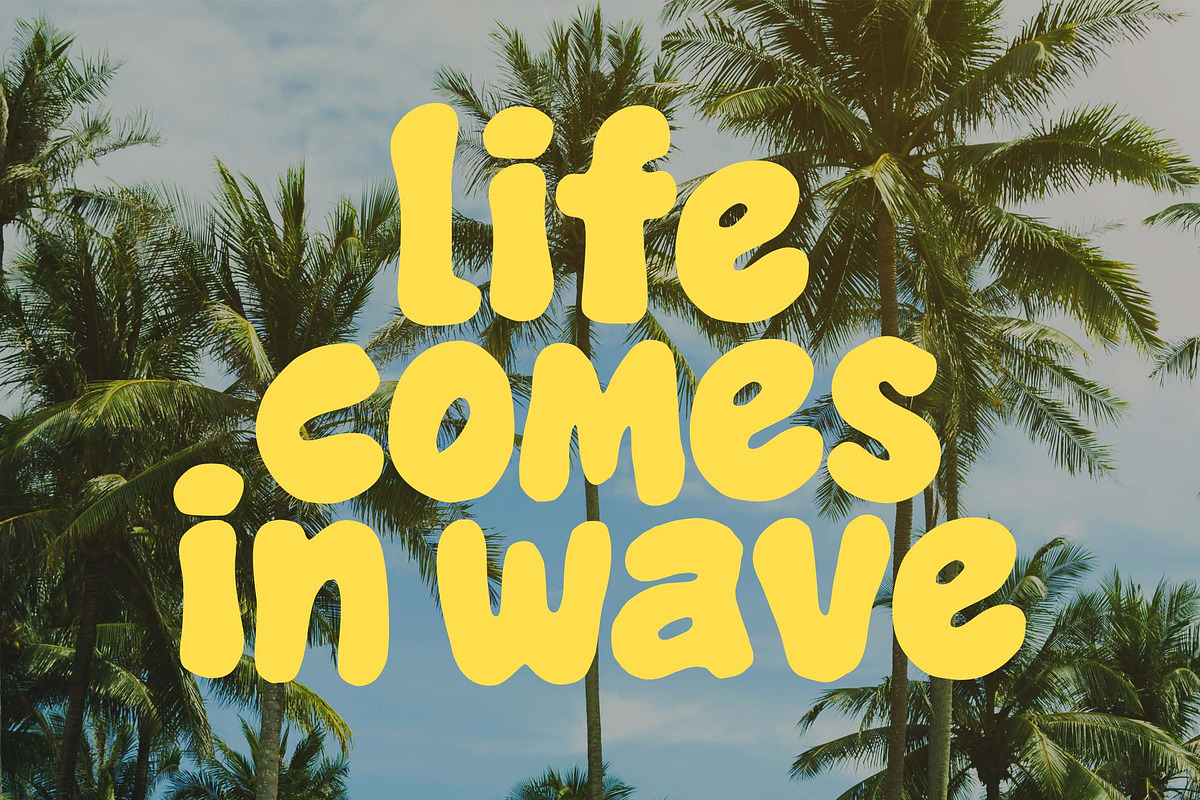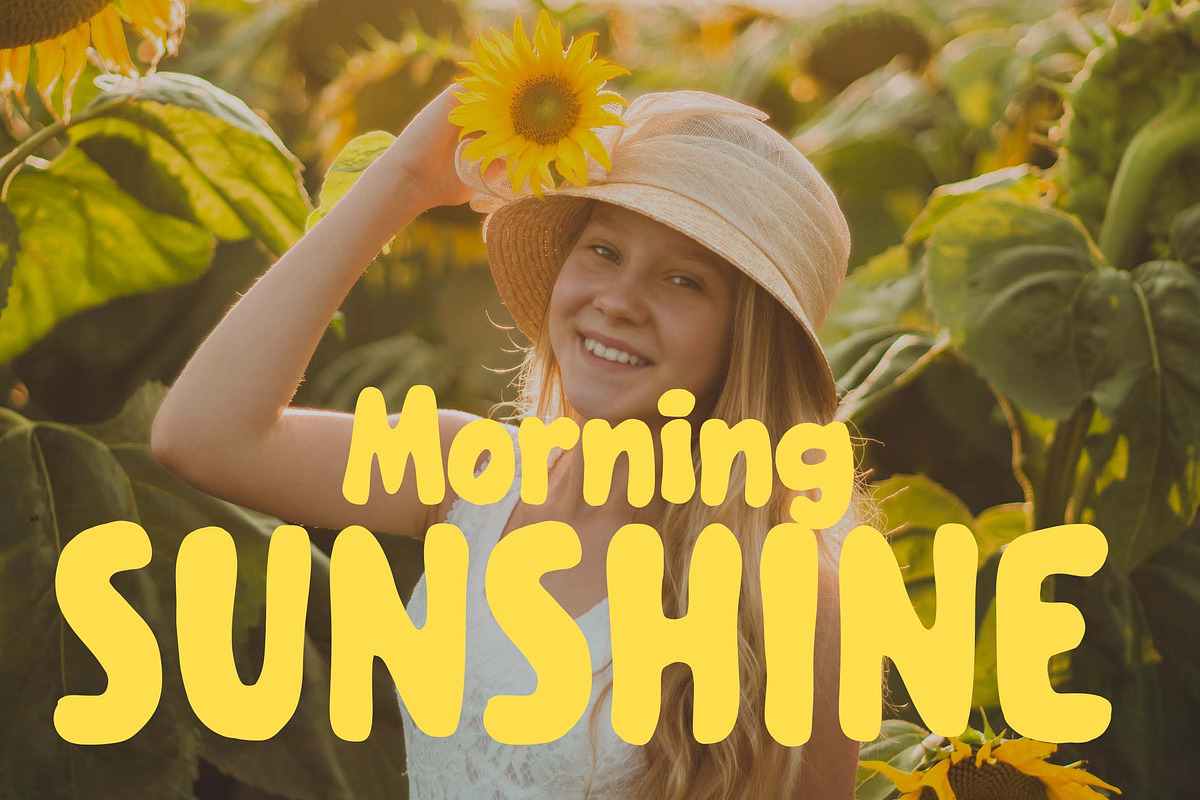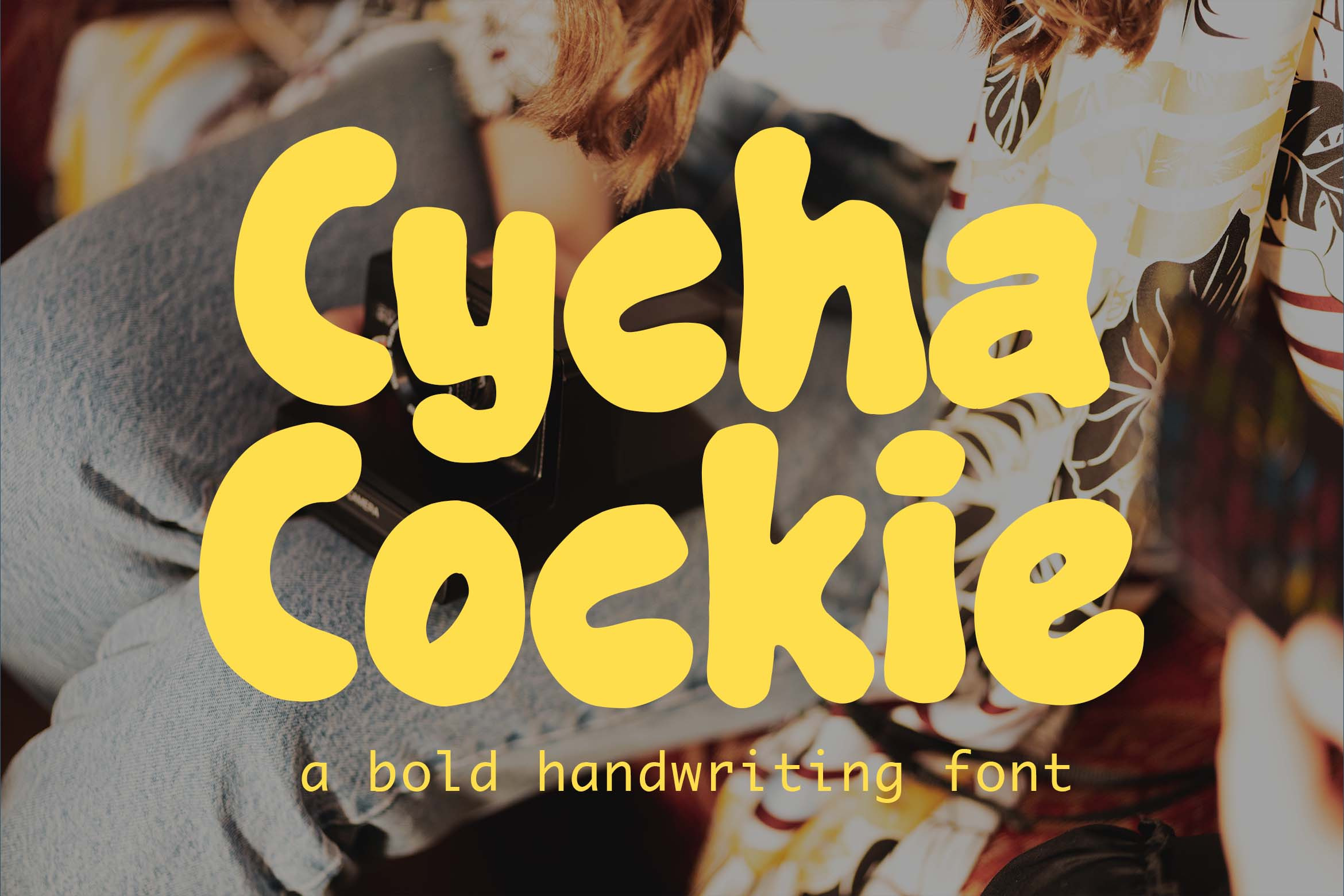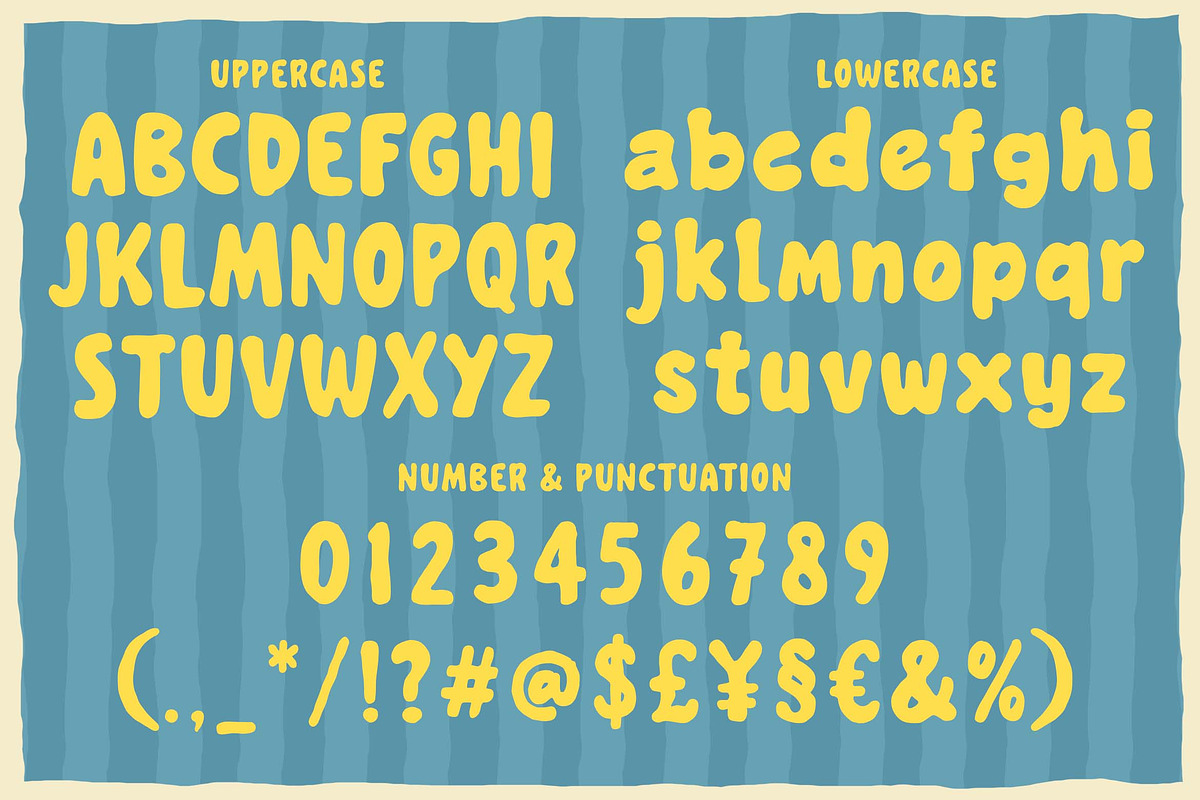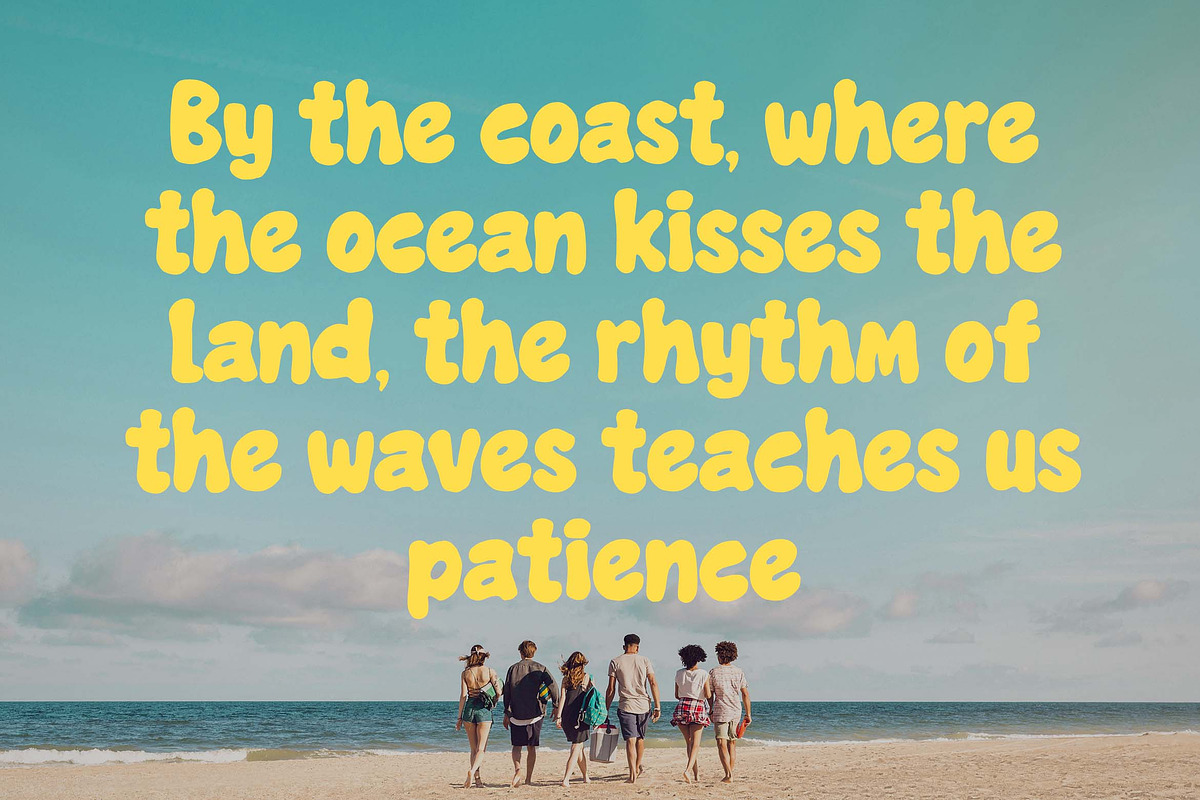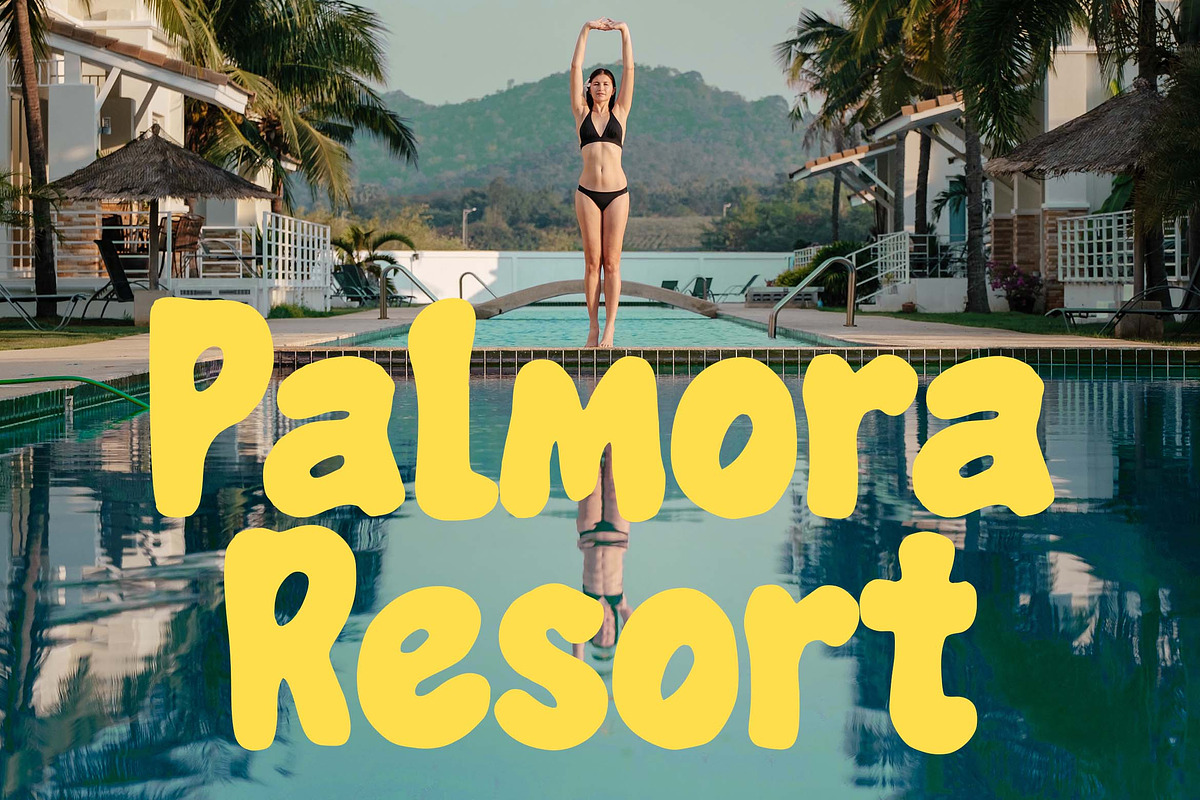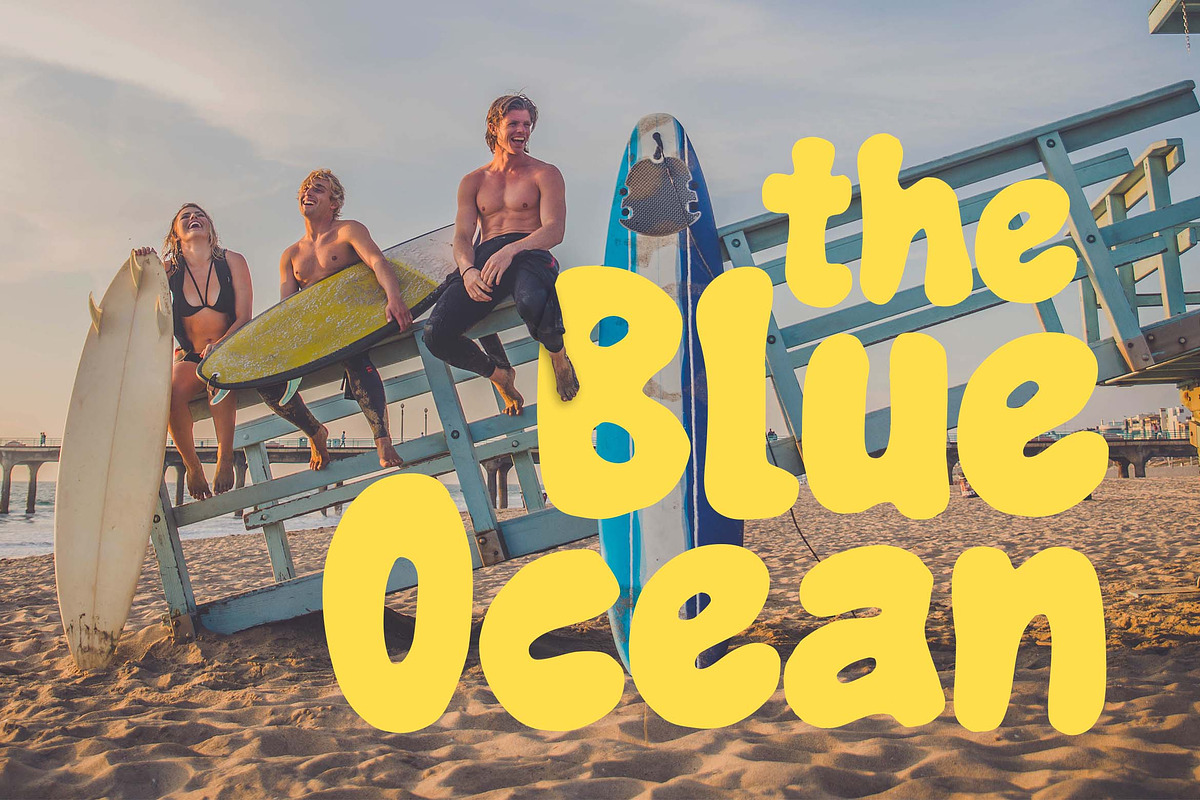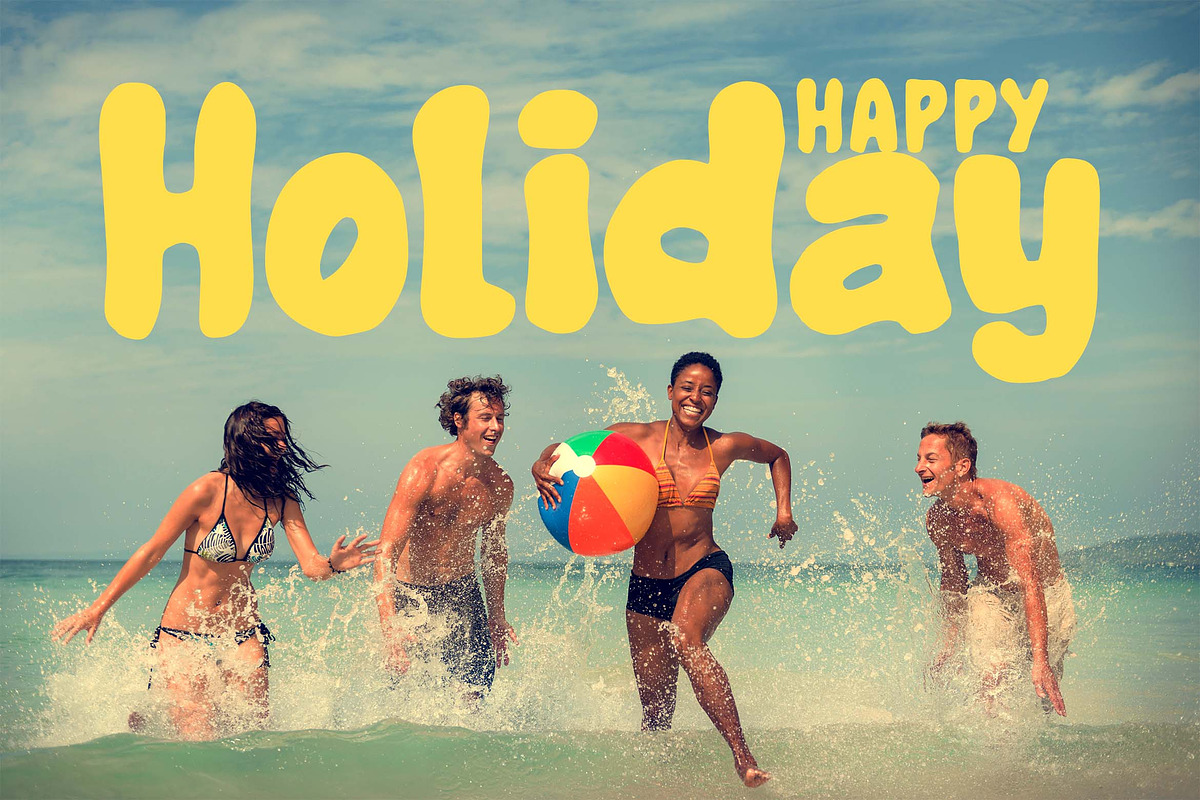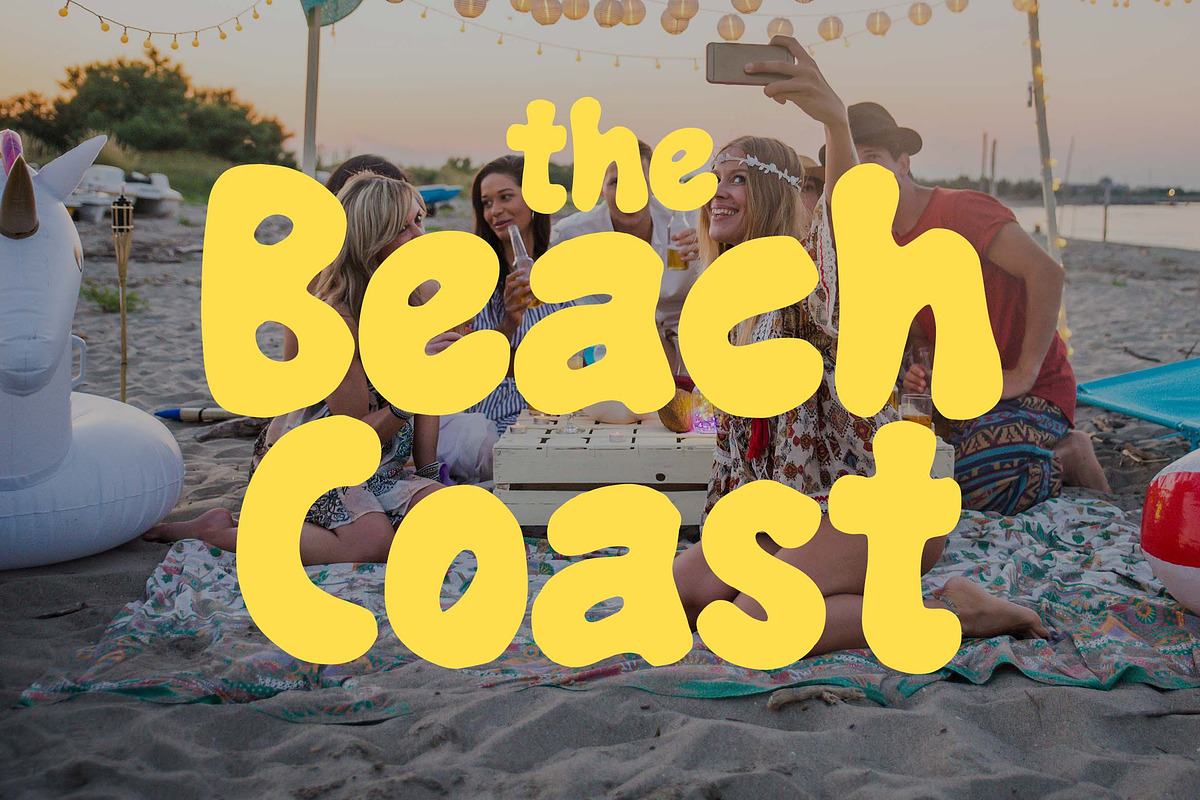
Cycha Cockie a bold handwriting font
Hello, awesome people! This time, we have a new font called Cycha Cockie a bold handwriting font by Blankids Studio.
Cycha Cockie a bold handwriting font is made for any professional project branding, such as logotype, watermarks, poster, branding, promotions, product packaging, etc. Every letter has a unique style design. This font comes in Otf. and Ttf. files.
Cycha Cockie font includes a full set of unique uppercase and lowercase letters, numerals and punctuation. This font has a unique style. See the previews above to get some inspiration on how to use them. Happy designing!